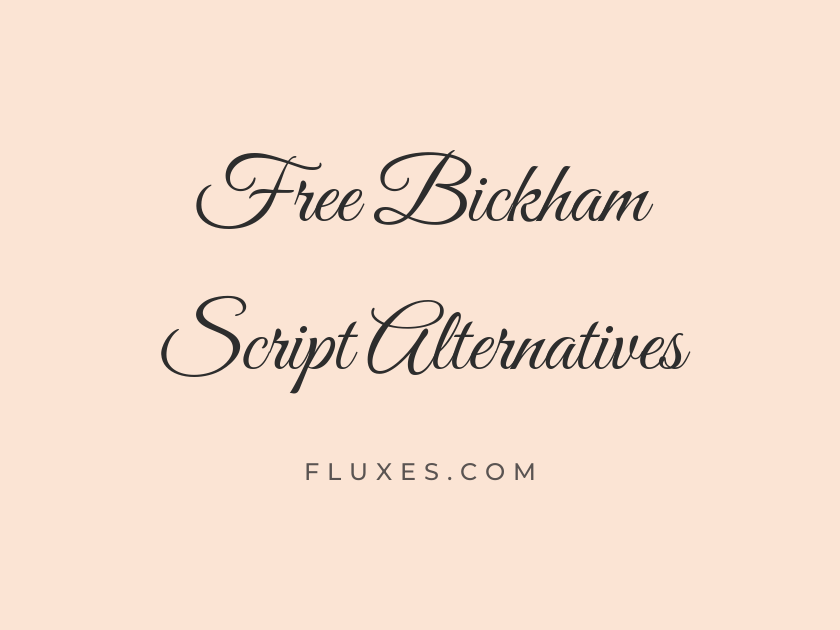
15 Best Free Fonts Alternatives to Bickham Script
Bickham Script built its reputation on the wedding invitation, the wine label, and the luxury certificate, offering the kind of formal copperplate flourish that feels hand-lettered by a master engraver. That elegance comes at a price, since the full family is a commercial release, which sends a lot of designers looking for a free alternative that still carries the same ceremonial weight. Google Fonts has quietly built up a strong bench of formal scripts over the past decade, several of which can stand in for Bickham Script on invitations, menus, logos, and certificates without anyone noticing the swap.
1. Great Vibes
Together forever, from this day forward
Great Vibes is the font most designers reach for first when a client says “something like Bickham Script but free.” Its long entrance and exit strokes connect smoothly letter to letter, giving paragraphs of text a genuine handwritten flow rather than a row of isolated glyphs. It works best at display sizes on invitations and monograms, where its delicate hairlines have room to breathe.
2. Alex Brush
Warmly requesting the pleasure of your company
Slightly bolder and more compact than Great Vibes, Alex Brush trades some of that airiness for a sturdier stroke that holds up better in smaller print runs and on textured paper stock. It reads as friendly and personal rather than aristocratic, which makes it a good choice for save-the-dates and personal branding that wants warmth alongside polish.
3. Allura
Elegantly written for your special occasion
Allura leans into tighter letter spacing and a slightly more upright angle than most formal scripts, so it can sit comfortably in a single line of a logotype without the swashes colliding. Designers pair it with a restrained serif or sans body copy to keep an invitation suite from feeling overdone.
4. Pinyon Script
An invitation crafted with timeless grace
Pinyon Script is arguably the closest match in spirit to Bickham Script’s engraved, copperplate ancestry, with tall ascenders and descenders that loop dramatically above and below the baseline. It demands generous line spacing, since those flourishes will collide with neighboring lines if set too tight. This is a font for a single elegant word or short phrase, not a paragraph.
5. Tangerine
Love letters written in flowing script
Tangerine is thinner and more fragile-looking than most fonts on this list, which is exactly why it suits engraved-style stationery, foil stamping, and monogram work where a light touch reads as luxury. At small sizes it can turn faint or muddy, so it is best reserved for headlines and names rather than body text.
6. Parisienne
A romantic script for wedding stationery
Parisienne rounds off its curves more generously than Bickham Script ever did, giving it a softer, more contemporary romantic feel. It suits modern wedding branding that wants a script without quite so much Victorian formality.
7. Italianno
Gracefully designed for formal announcements
Italianno keeps its swashes tucked in fairly close to the letterforms, which makes it more legible in short phrases than many of its showier cousins. Its slightly condensed rhythm also makes it a practical choice for fitting a long name into a tight logo space.
8. Mr De Haviland
Signed with love and best wishes
Mr De Haviland
Mr De Haviland has the loose, energetic character of genuine handwriting rather than an engraver’s careful copperplate, so it suits informal signatures, thank-you cards, and personal notes more than a formal certificate. It pairs nicely as an accent alongside a more structured script used for the main heading.
9. Herr Von Muellerhoff
Cordially invited to celebrate with us
This one leans thinner and more delicate still, closer to a fountain pen flourish than a broad-nib script. It photographs beautifully on save-the-dates and wax-seal style branding, though its fine hairlines mean it should never be shrunk down for fine print.
10. Rouge Script
A charming script for boutique branding
Rouge Script sits a notch more casual and bouncy than Bickham Script, with a slight forward lean and rounder terminals. It fits boutique packaging, cosmetics labels, and small business logos that want a feminine, handwritten feel without full-on formality.
11. WindSong
Delicately scripted for a cherished memory
WindSong balances narrow, upright letterforms with just enough looping detail to feel special without becoming illegible. It has a quiet confidence that suits memorial plaques, anniversary cards, and other keepsake pieces where restraint matters as much as beauty.
12. Meddon
Kindly join us for an evening celebration
Meddon has a more relaxed baseline wobble than the strictly engraved scripts on this list, giving it a friendlier, less rigid personality. It works well for casual wedding suites or greeting cards that want script charm without excessive grandeur.
13. Petit Formal Script
Any of these free alternatives can carry the same sense of occasion that made Bickham Script a design staple, without the licensing fee attached to it. Try a few in context, on an actual invitation layout or logo mockup, before settling on the one that best fits your project’s tone.